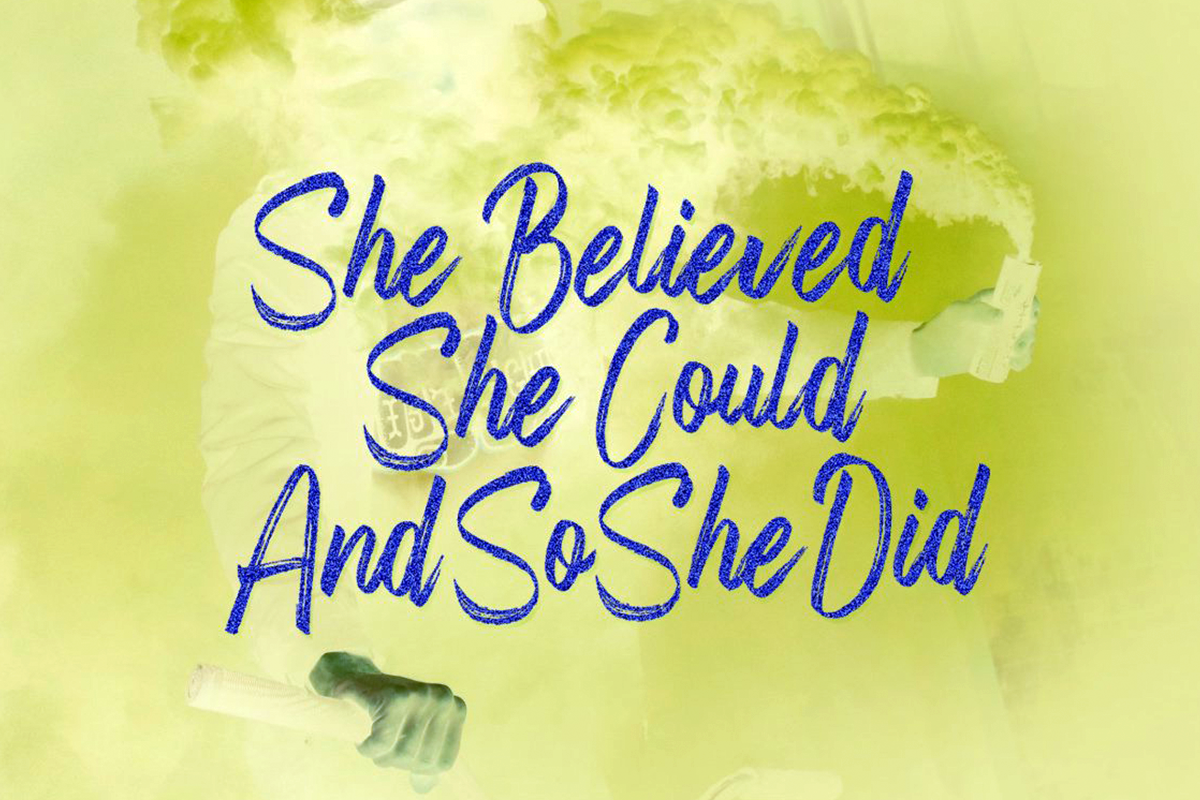
Fronds Getturing Free Font
Fronds Getturing is textured brush font, handmade natural with an irregular baseline. Suitable for use in title design. Such as books tittle, quotes, apparel, invitations, stationery design, greeting card, branding, logos, t-shirt, packaging design, poster and more.